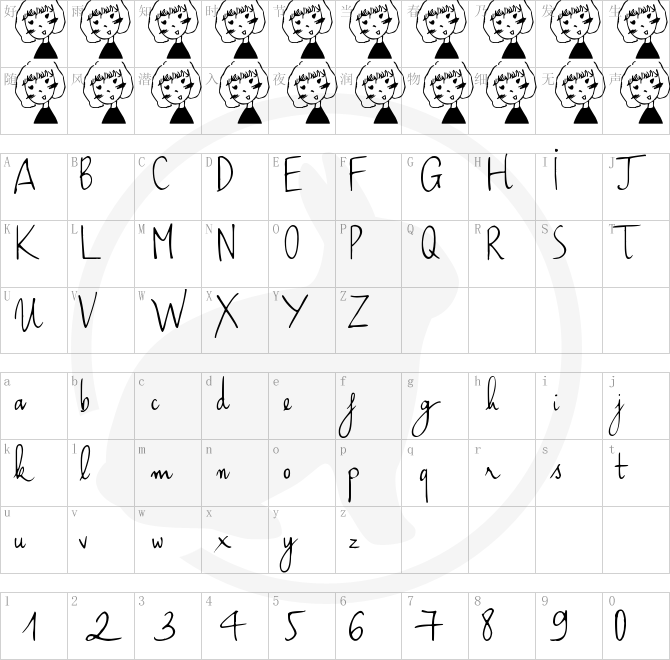
- Font Name:Haiku's Script v.09
Haiku-s-Script-ver-09-Regular.ttf is a very beautiful artistic font, Haiku-s-Script-ver-09-Regular.ttf is widely used in the design and printing of various books and pictures,Haiku-s-Script-ver-09-Regular.ttf has a strong visual impact,Haiku-s-Script-ver-09-Regular.ttf is a commonly used font in newspapers, magazines and books, and is used in posters, e-commerce Poster design, store design, logo design, font design and other fields.Haiku-s-Script-ver-09-Regular.